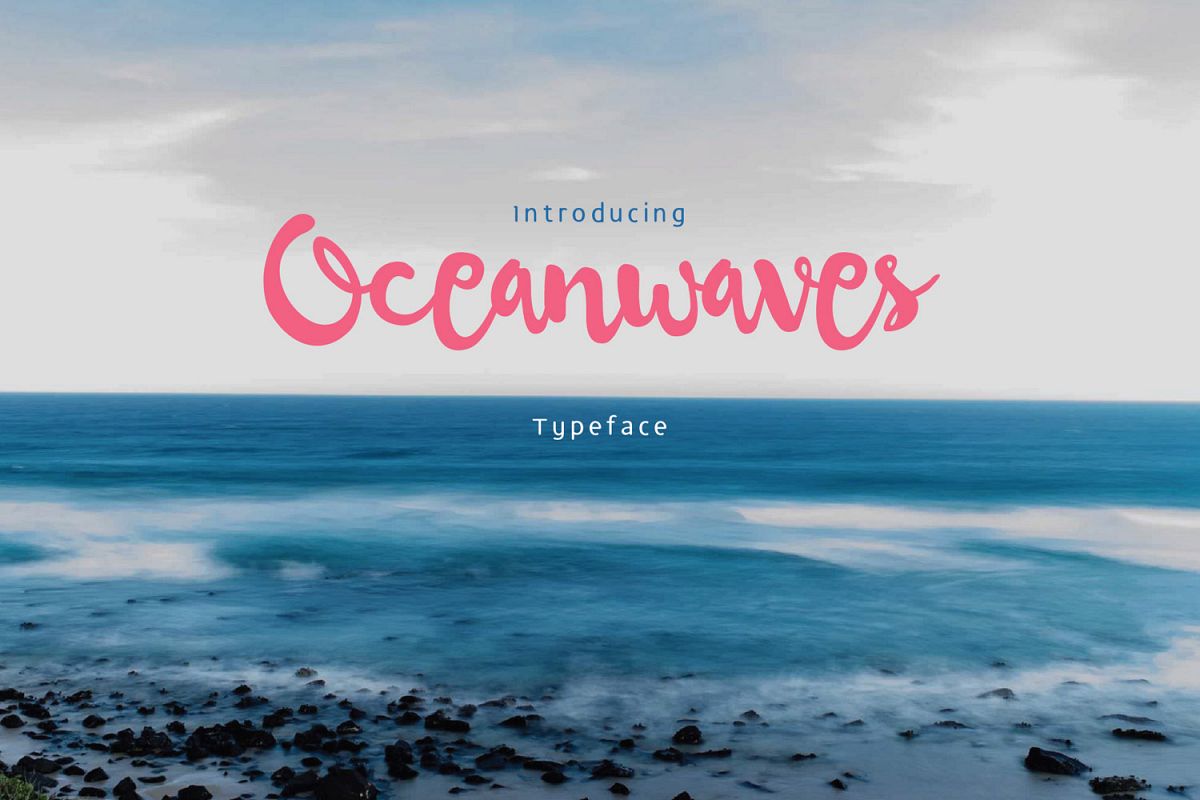
Oceanwaves
Introducing Oceanwaves typeface
Base on brush hand lettering character, this playful script can make your text so much fun.
Including this uppercase, lowercase, punctuation, numbers, alternate characters or ligatures into your design to make it more unique and catchy.
Add more fun to your letter, quotes, title, headline and also your invitation.